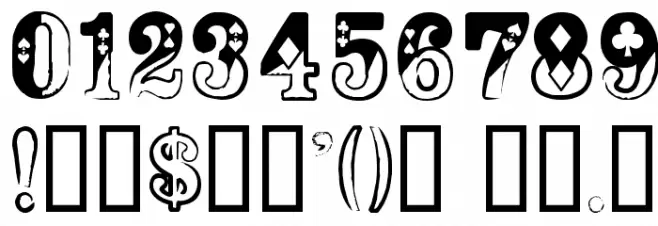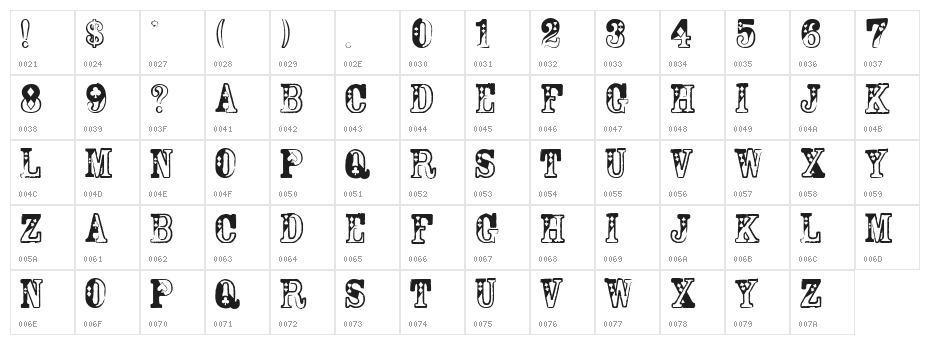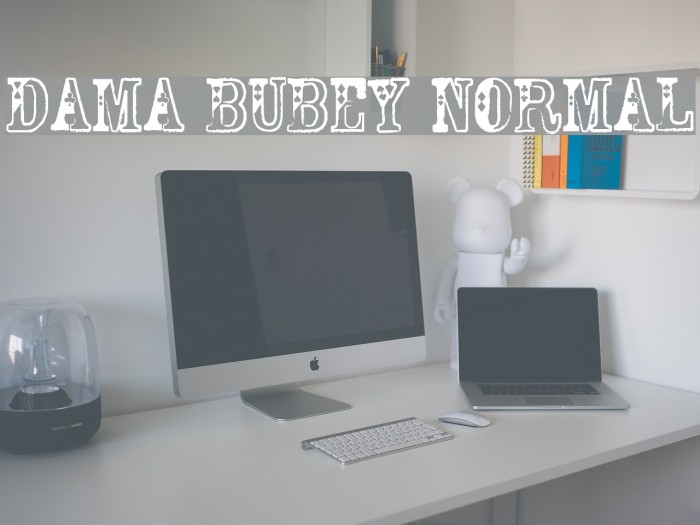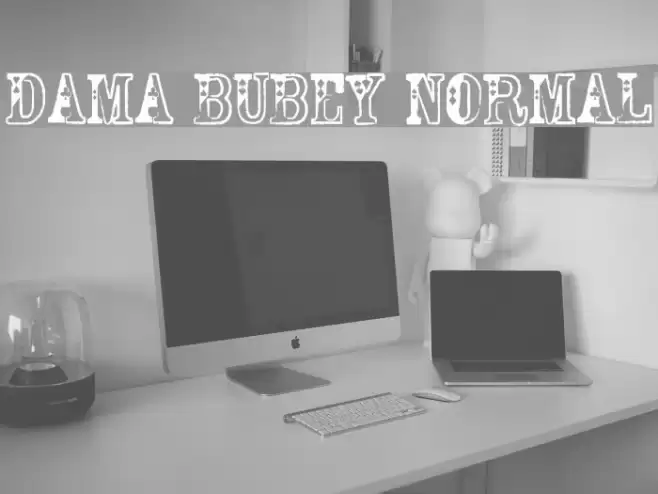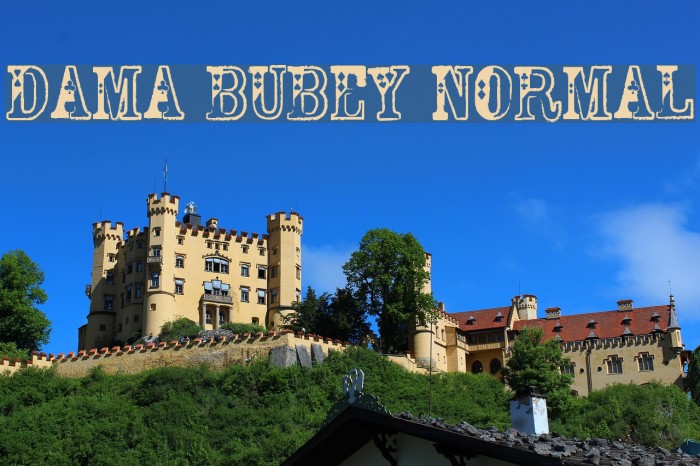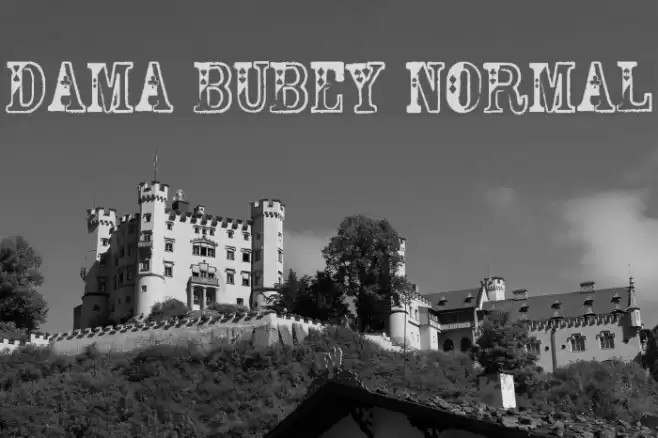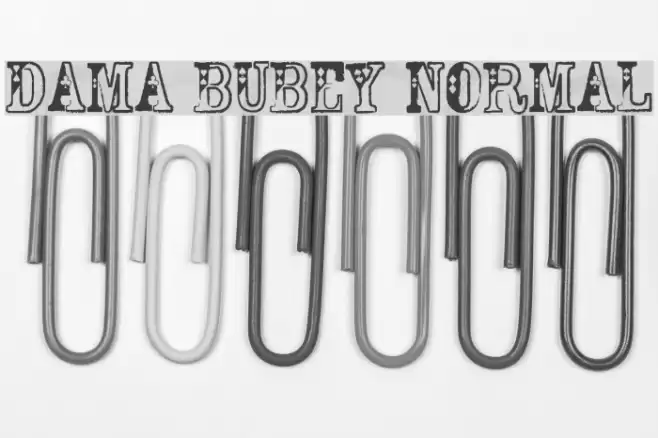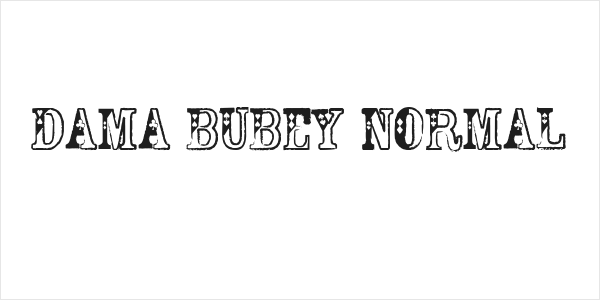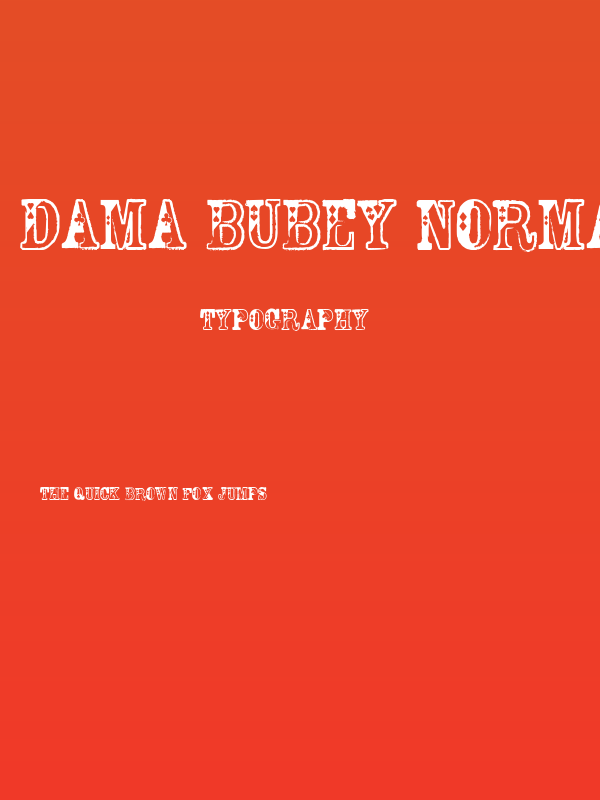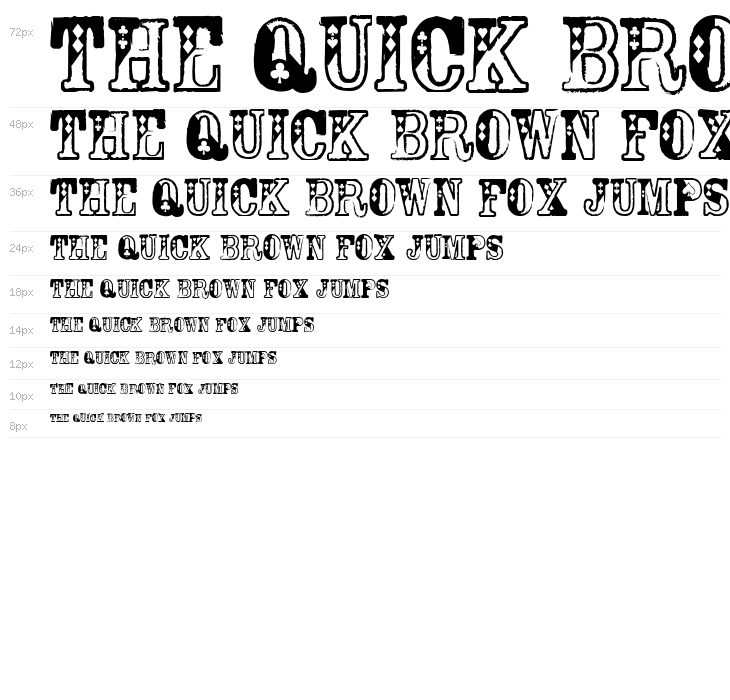
Dama Bubey Normal Font
Dama Bubey Normal Description
This font features a bold, decorative style with a distressed, grunge-like texture. Each character is adorned with unique, irregular patterns that give it a vintage and rugged appearance. The uppercase letters are prominent and eye-catching, making them suitable for impactful designs. The numbers and special characters maintain the same distressed aesthetic, ensuring consistency across all glyphs. The font's playful yet edgy look makes it ideal for creative projects that require a standout typeface.
| Overall Style | Vintage, Decorative |
| Proposed Projects | Ideal for poster designs, album covers, vintage-themed branding, and creative advertising campaigns. |